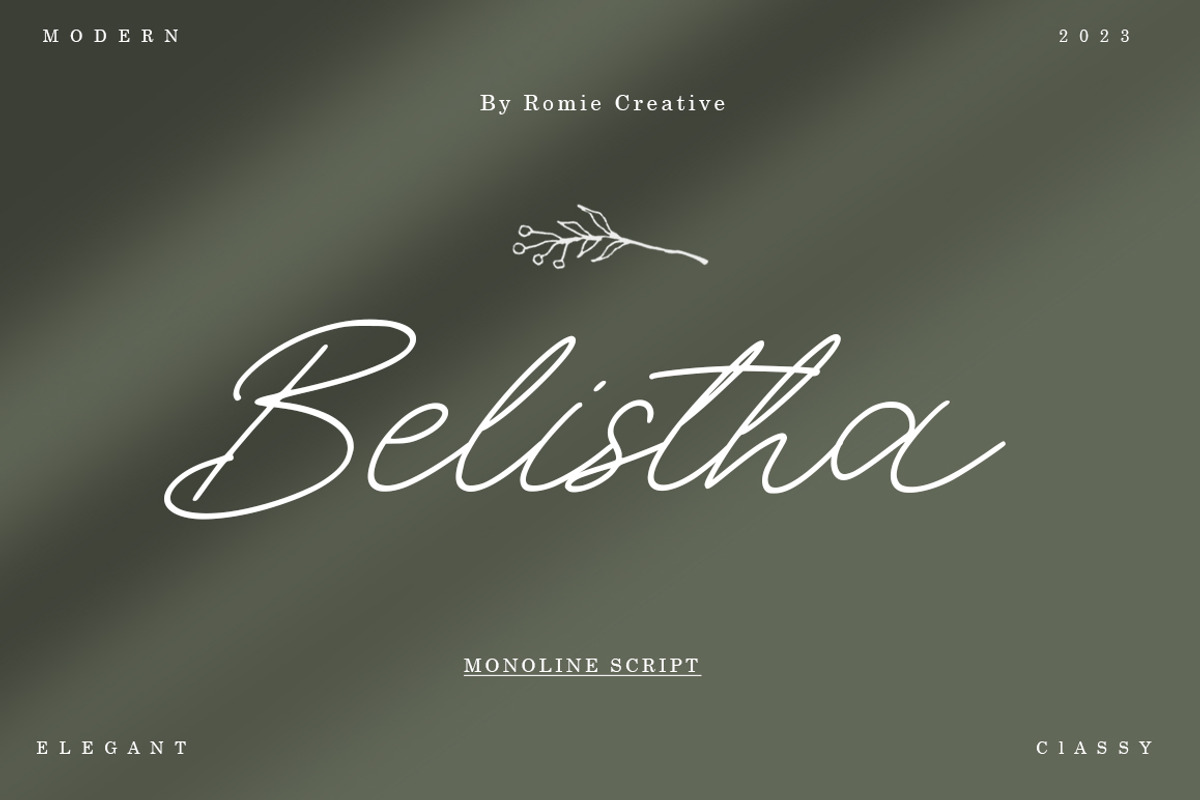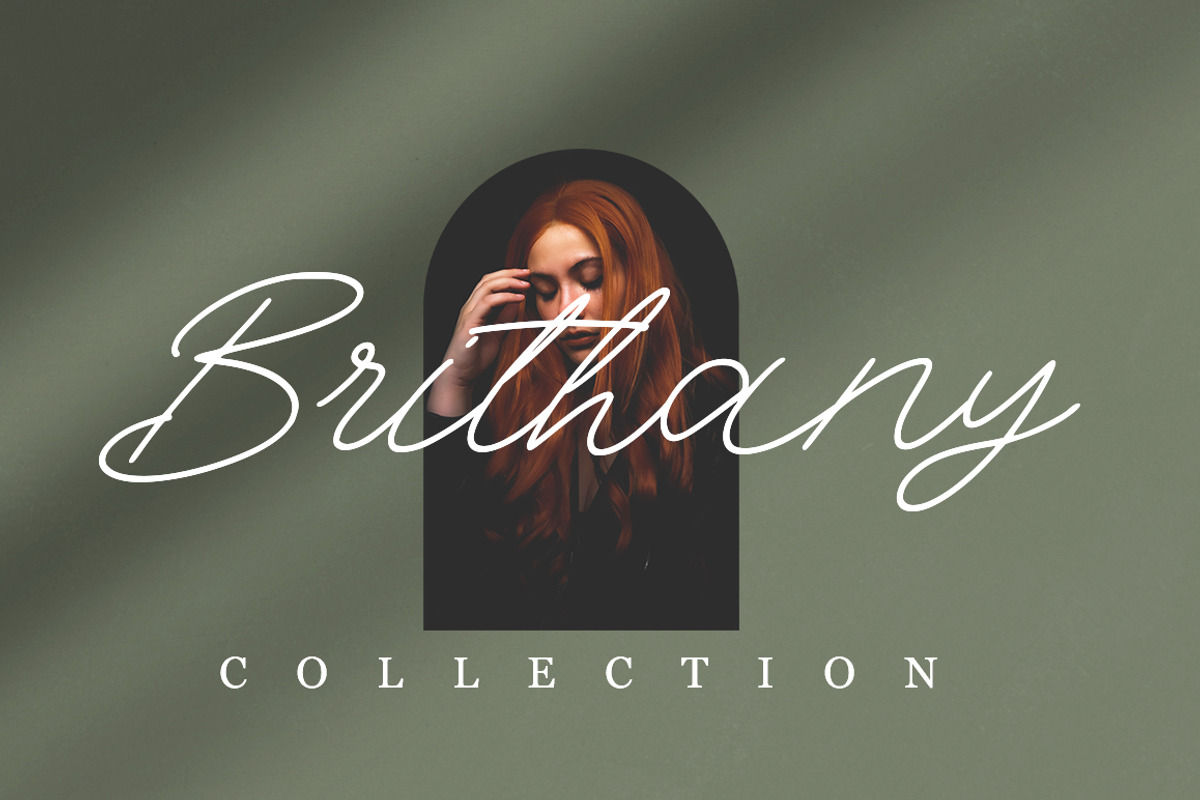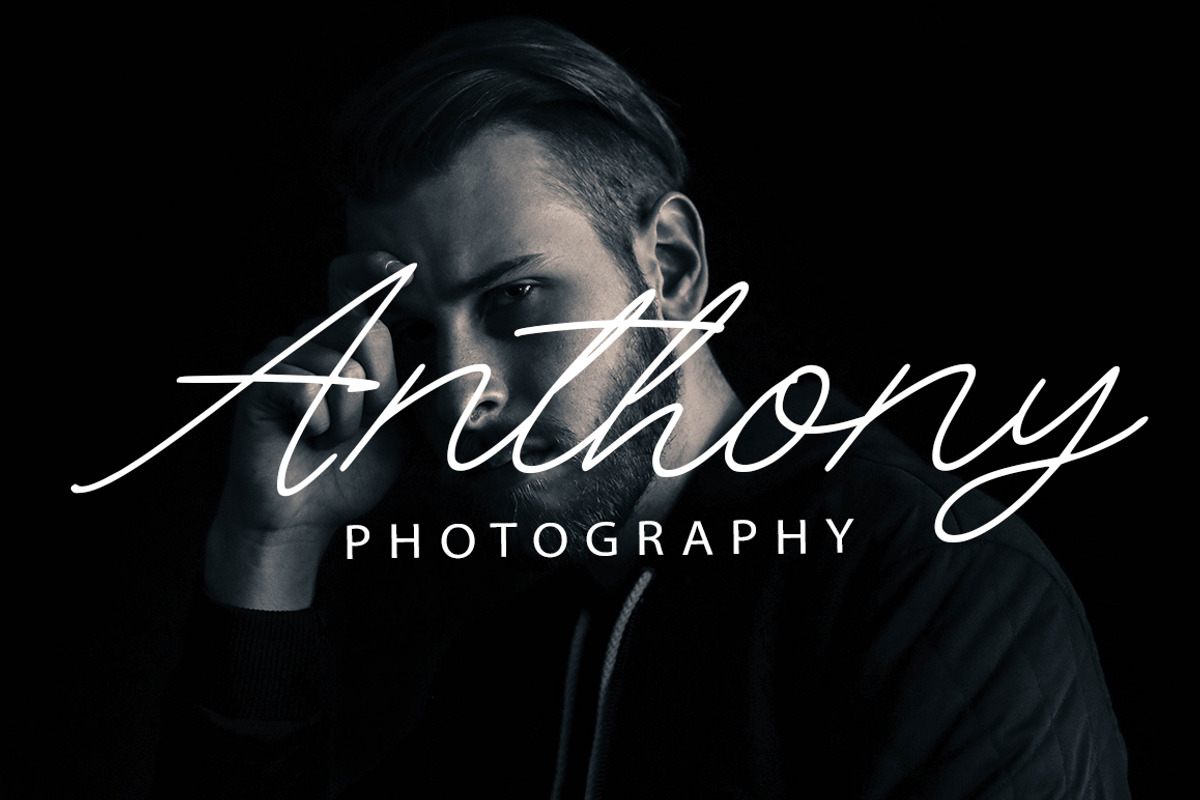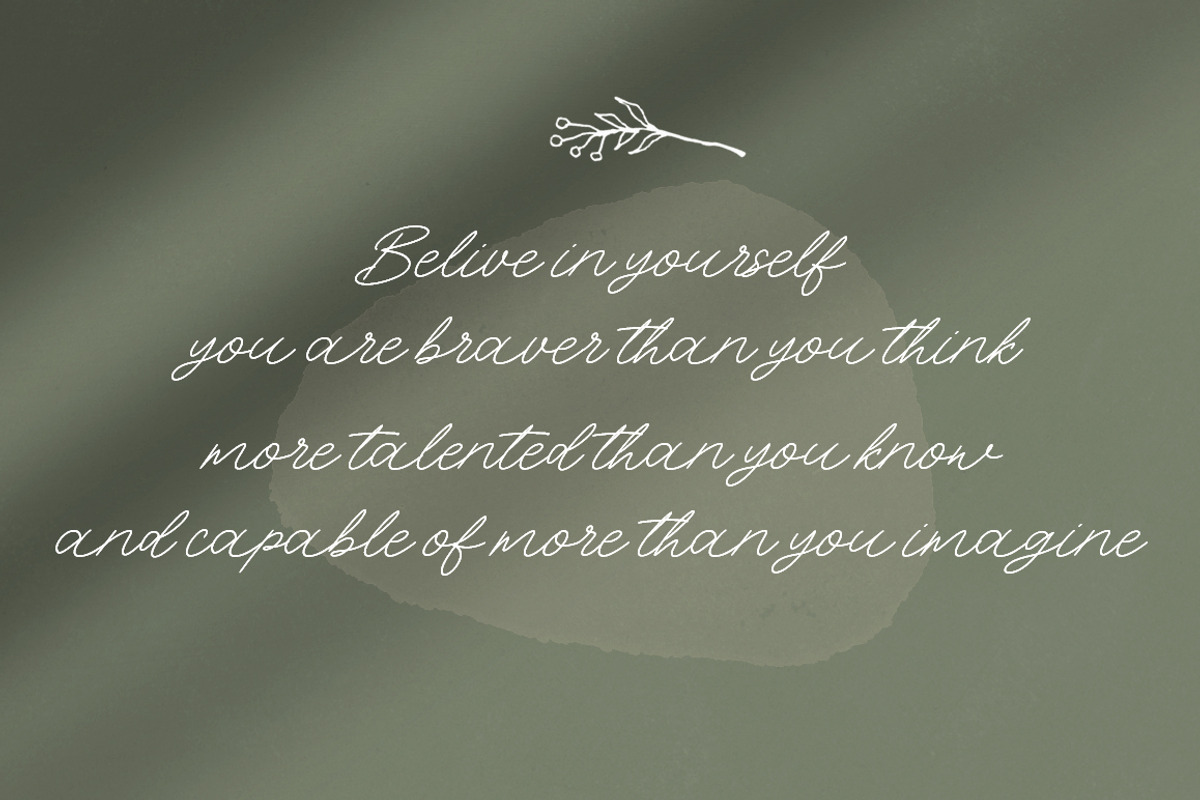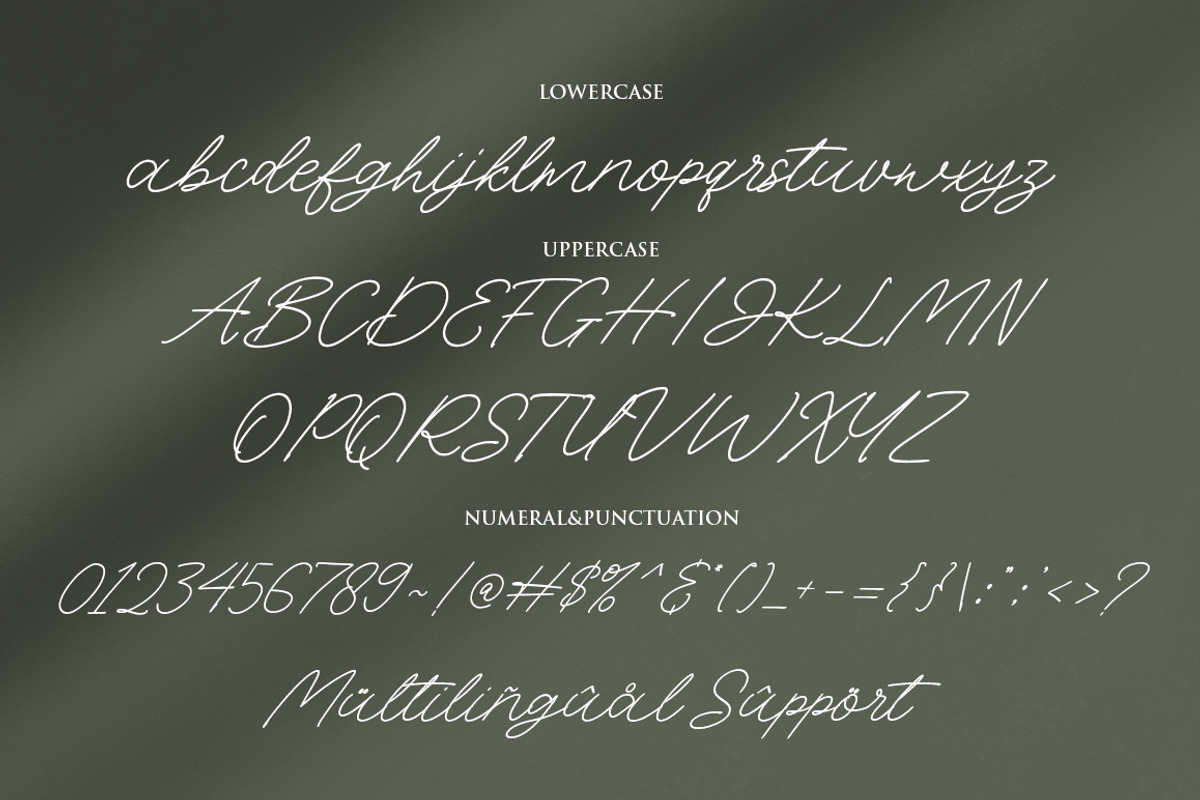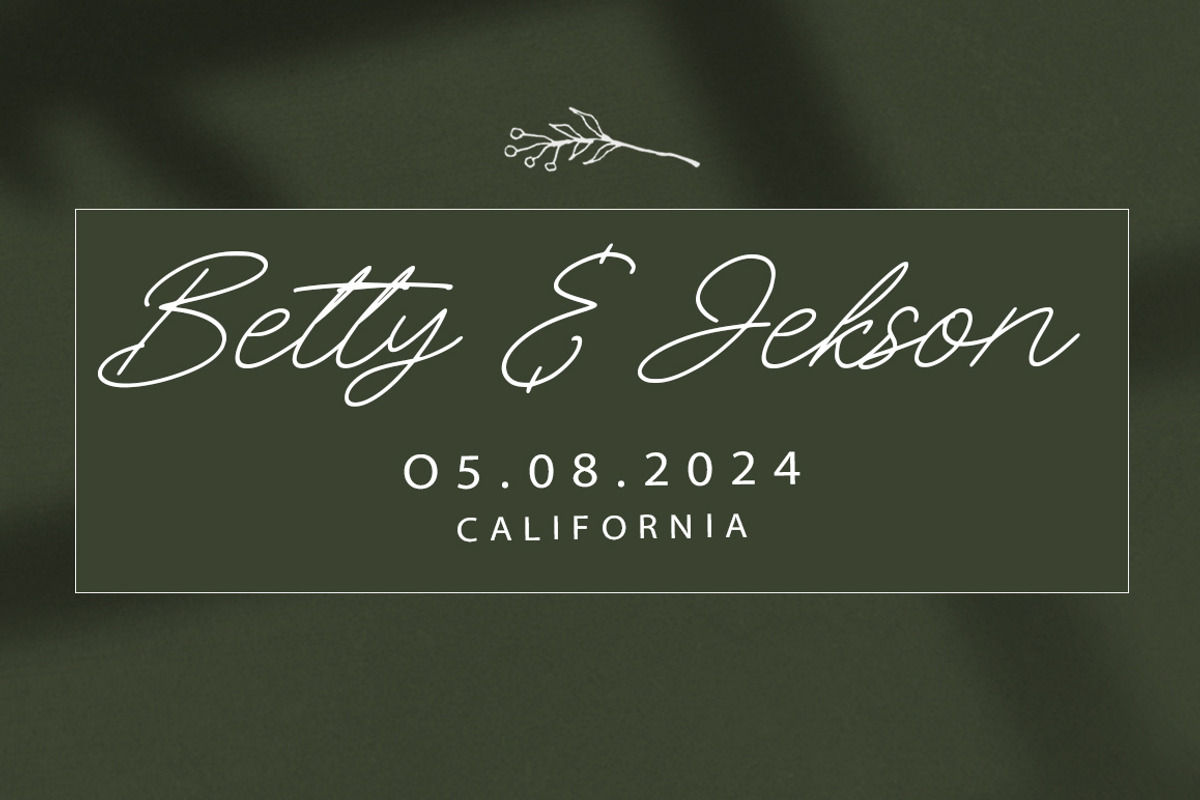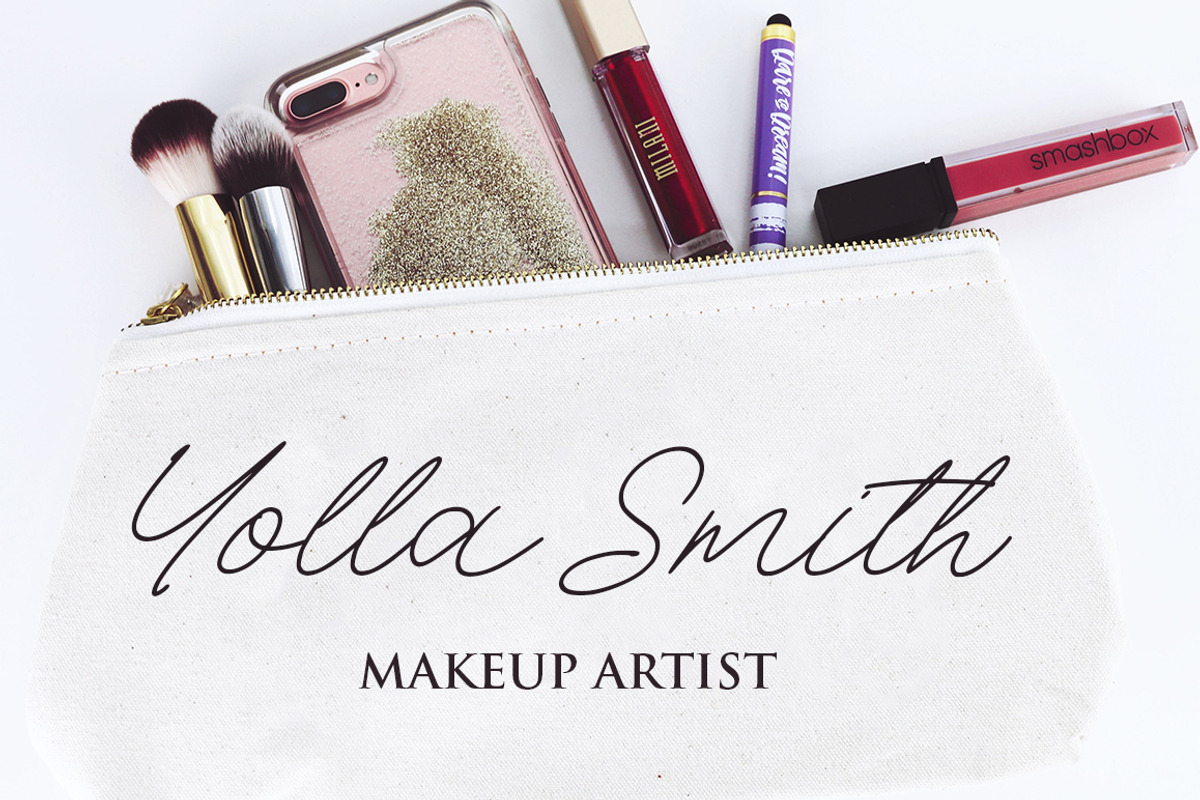
Belistha
Belistha is a stylish monoline font, this font is perfect for watermarks, invitations, stationery, wedding designs, social media posts, advertisements, product packaging, product design, labels, photography, logos, special events and more.
Belistha comes with a lot of additional features that allow you to customize your text. You will get a complete set of uppercase and lowercase letters, multilingual, punctuation, binding, a-z style alternatives.